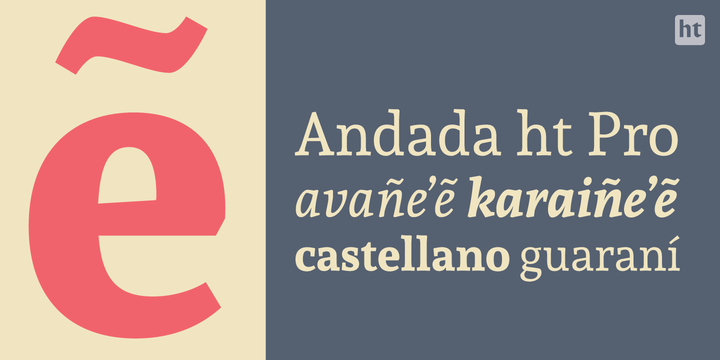
• Andada ht Pro
Andada ht is an organic-slab serif, hybrid style and a solid design of medium stroke contrast. It is a type for text written in Guaraní and Spanish. The main goal of its design is not reducing a culture to an aesthetic fact. The «pusó», an inter vowel sign that the Guaraní language uses similar to an apostrophe, was designed in consonance with the vowels and, from this sign, the diacritics (which Guaraní heavily uses) were designed. The digraphs were created by pairs, instead of designing them as ligatures. Particular attention was paid to the diacritics design so they could have a great performance in languages where its use is frequent.